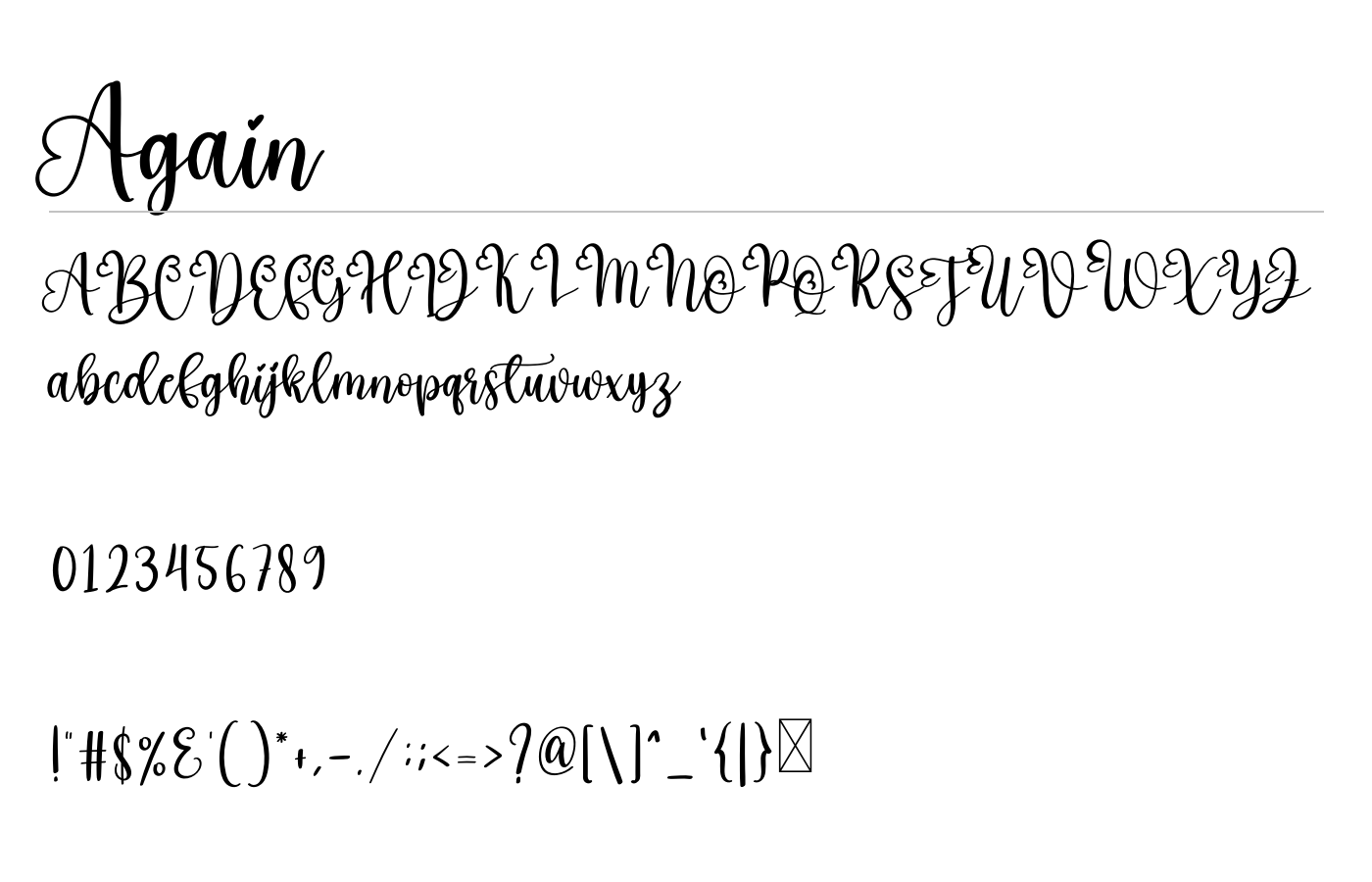
Again Font is a playful and elegant script with a light, flowing weight and decorative swirls that add a touch of whimsy. Its tall x-height and smooth curves make it ideal for creative projects seeking a charming, handwritten feel, perfect for invitations, branding, and stylish headlines that want to convey warmth and personality.
Again Font
About Again Font